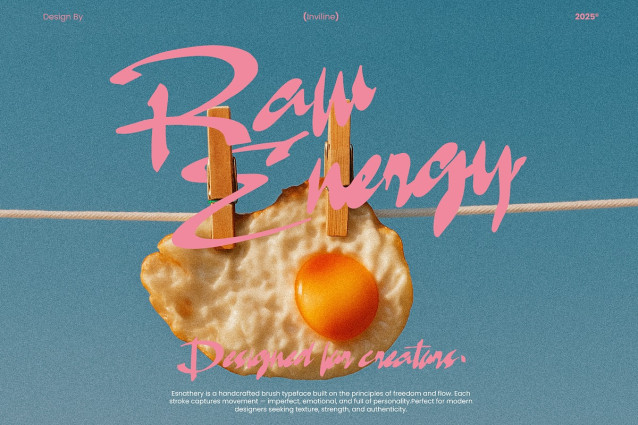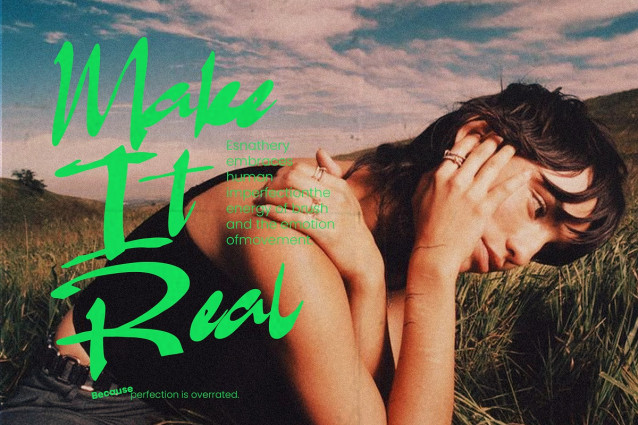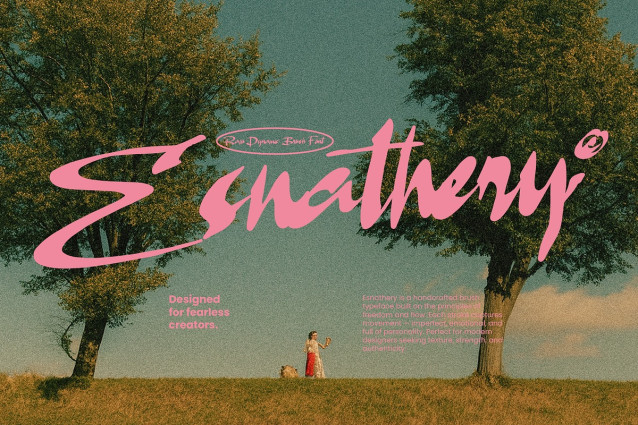
Esnathery Font
Esnathery Font is a handcrafted brush typeface designed to embody raw energy and emotional movement. Each stroke captures imperfection and personality—perfect for loud, expressive designs. From dynamic posters to energetic branding, Esnathery lets you create with fearless authenticity. Ideal for creators who value texture, motion, and an unpolished charm in their work.